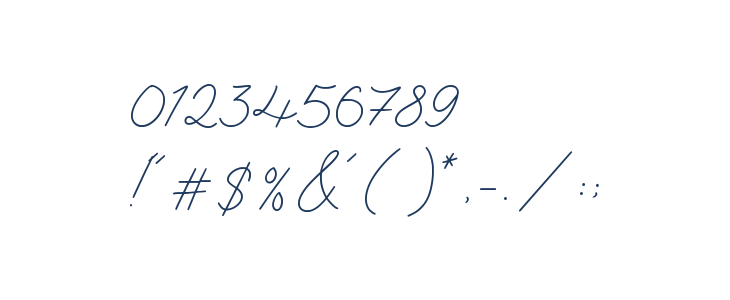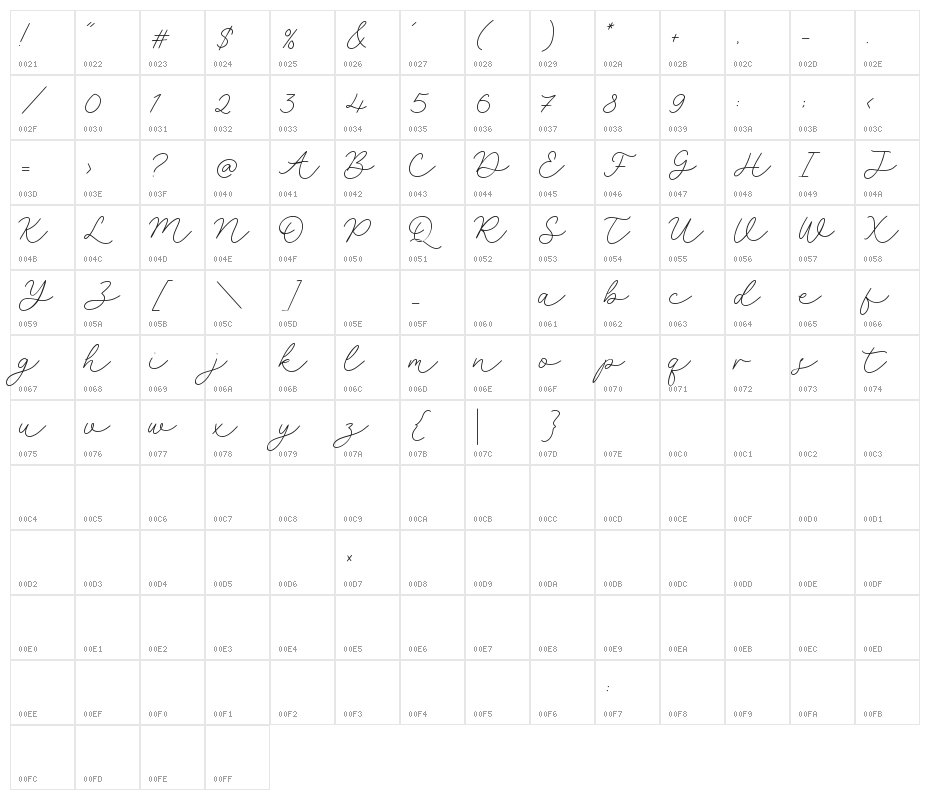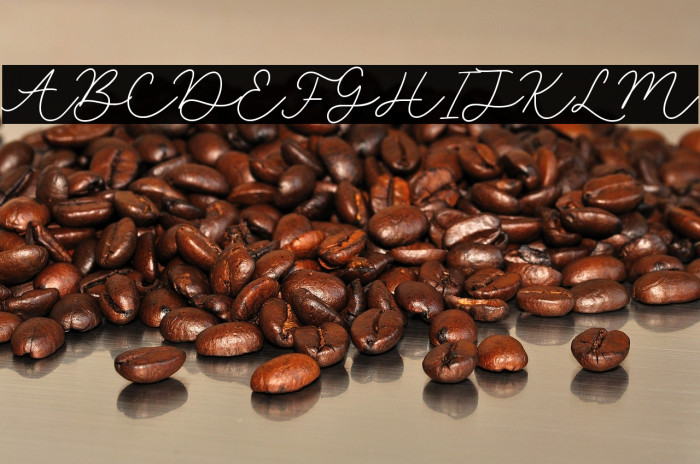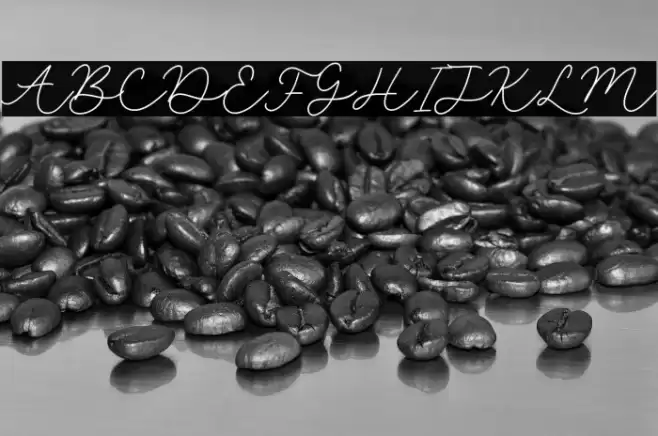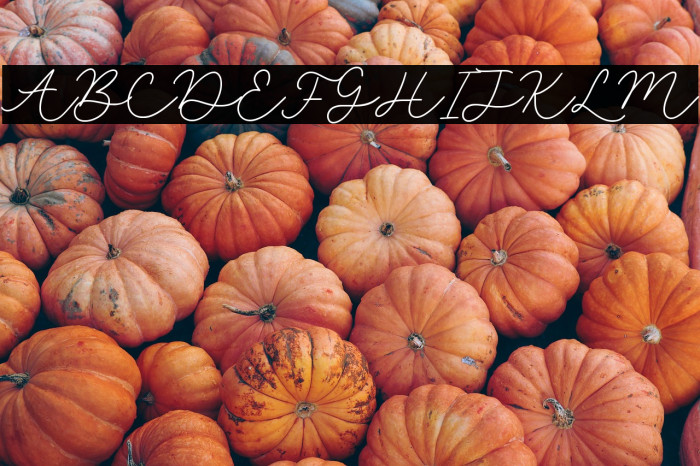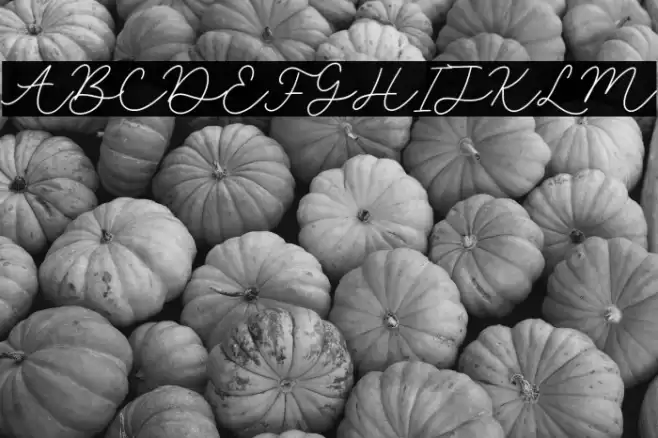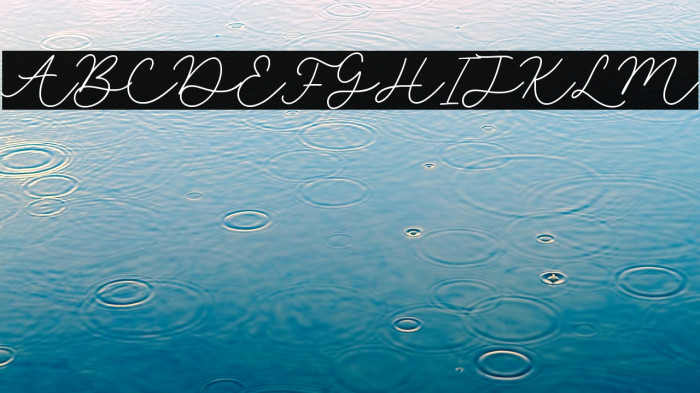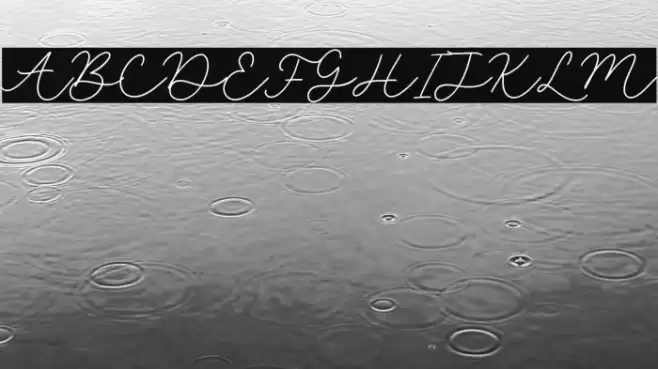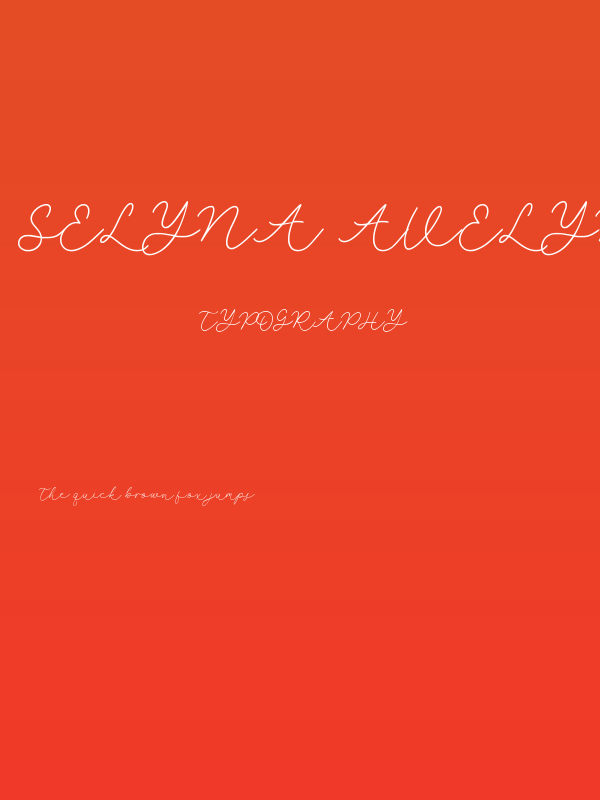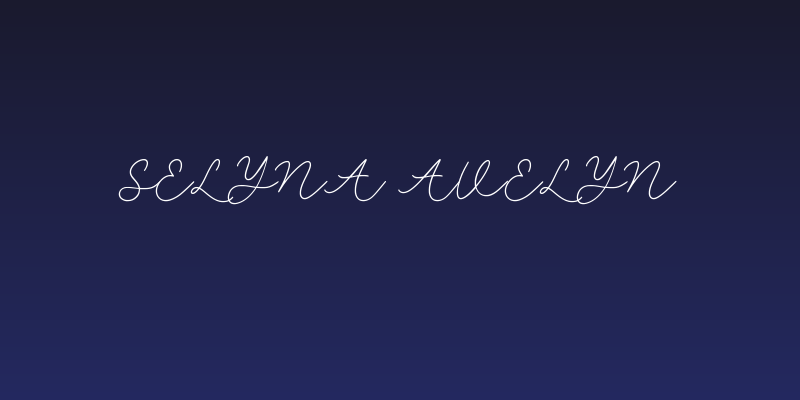
selyna avelyn Font
selyna avelyn Description
This elegant script font features a delicate and flowing design, characterized by its smooth, continuous strokes and graceful curves. The uppercase letters are slightly more elaborate, with sweeping lines that add a touch of sophistication. The lowercase letters maintain a consistent flow, creating a harmonious and cohesive look. The numerals are clear and legible, while the special characters blend seamlessly with the overall style. This font exudes a sense of elegance and refinement, making it ideal for projects that require a personal or artistic touch.
| Overall Style | Elegant |
| Use Case | Logos, Invitations, Artistic projects |
| Proposed Projects | Ideal for wedding invitations, greeting cards, personal branding, and artistic projects. |